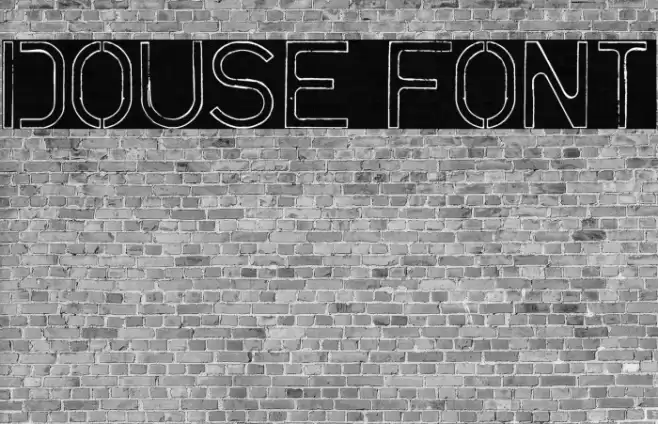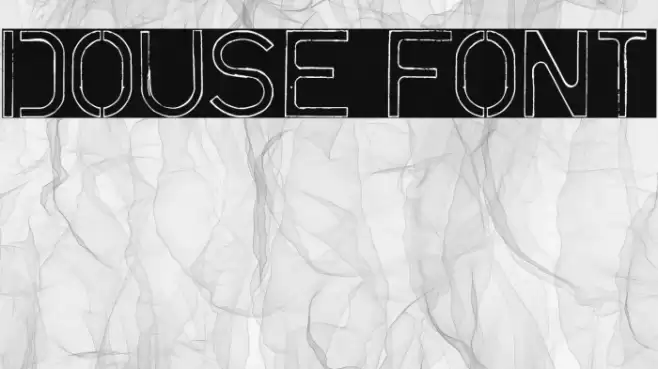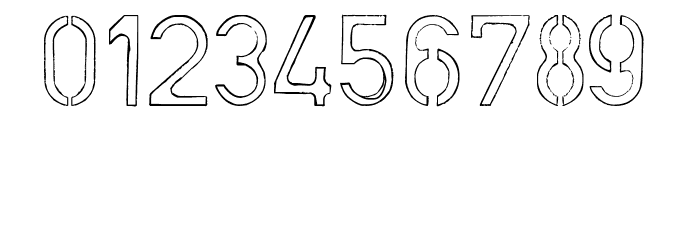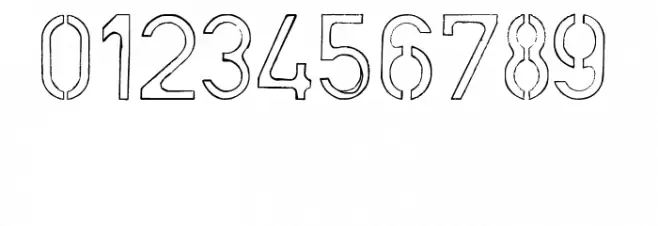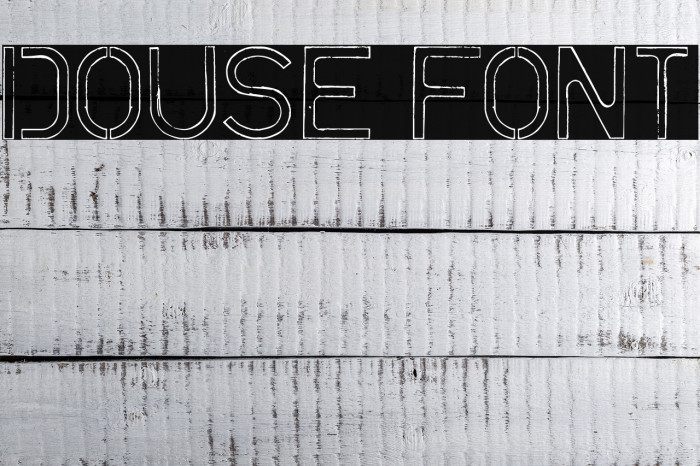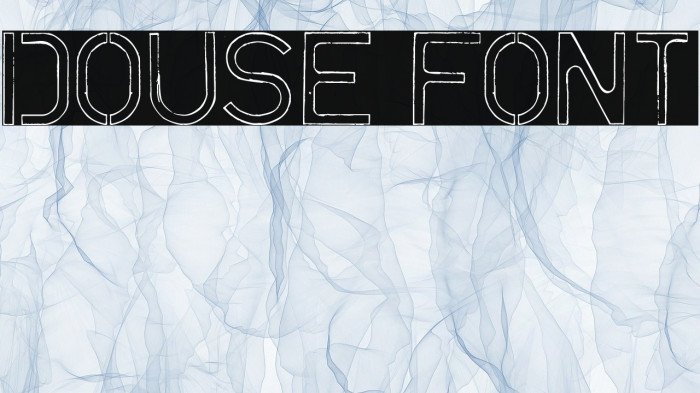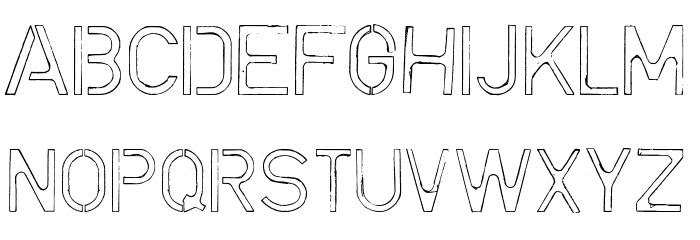
Douse Font
Douse Description
This font features a distinctive stencil-like design with a modern twist. Each character is constructed with clean, geometric lines and open spaces that create a sense of industrial precision. The uppercase and lowercase letters maintain a consistent style, with sharp angles and uniform stroke widths. The numbers follow the same design principles, ensuring a cohesive look across all characters. The special characters are crafted with the same attention to detail, making them suitable for various applications. This font's unique style makes it ideal for projects that require a contemporary and edgy aesthetic.
A modern, stencil-inspired font with geometric lines and open spaces from Uncategorized fonts.
- Proposed Projects: Ideal for branding, signage, posters, and any project requiring a modern industrial look.
- Use Case: Headlines, Logos, Signage